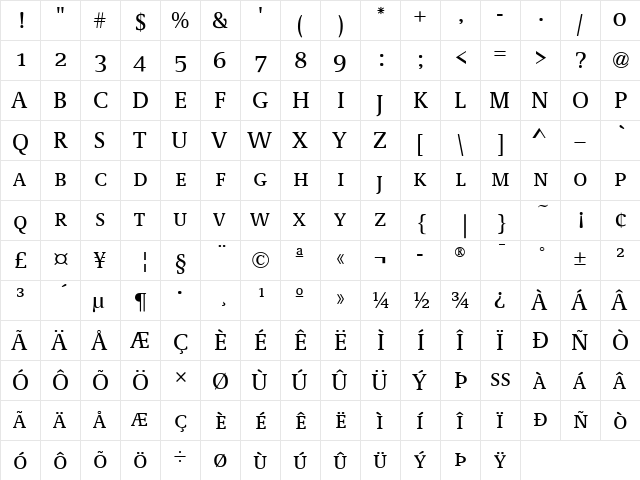
Demos LT MediumSC Regular
Design Context for Demos LT MediumSC Typeface
Demos LT MediumSC takes a measured approach to typography — its balanced proportions and neutral character make it a reliable workhorse for both digital and print work. The delicate stroke weight brings airiness and refinement to layouts.